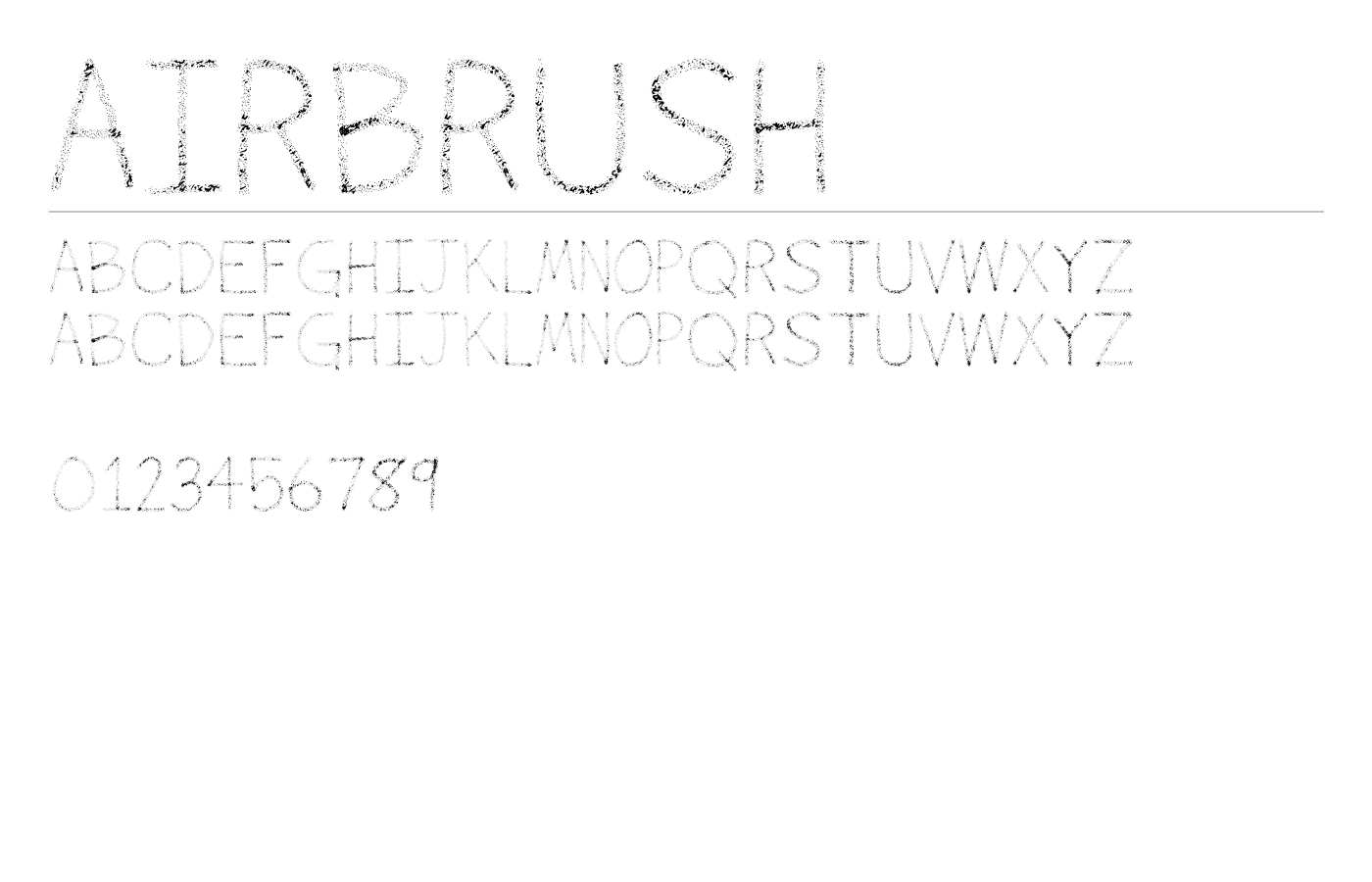
Airbrush is a delicate, light-weight sans serif font with a hand-drawn, stippled texture that mimics the soft spray effect of an airbrush tool. Its narrow letterforms and subtle uneven edges give it a casual, artistic feel, perfect for creative projects, informal branding, or designs that want to convey a playful yet modern vibe. This font works well at larger sizes, especially in headings and logos, where its unique texture can really stand out.
Airbrush Font
About Airbrush Font